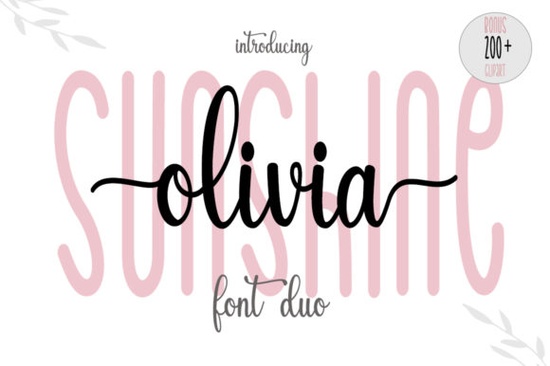
If you're looking for a friendly, bouncy script font that works well across greeting cards, social media graphics, or small-batch product labels, the Sunshine Olivia Font is worth trying. It’s a duo font meaning it includes both a clean, slightly rounded sans-serif companion and a flowing, baseline-dancing script and it’s designed to feel warm and approachable without looking overly formal or fussy. You’ll find it especially useful if you’ve ever struggled to balance personality with readability in hand-lettered-style designs.
What makes Sunshine Olivia different from other script fonts?
Unlike many script fonts that rely heavily on dramatic swashes or tight letter spacing, Sunshine Olivia keeps things open and easy to read even at smaller sizes. The script characters have subtle bounce and gentle contrast, giving them movement without sacrificing clarity. That makes it more flexible than some of the trendier, highly stylized scripts you’ll see in wedding or luxury branding collections.
The included sans-serif companion helps too. You can pair them for headings + body text, use the sans for captions or fine print, or even mix them in logos where legibility matters. And because it’s a Creative Fabrica download, you get bonus illustrations in .ai format hand-drawn sunbursts, leaves, and simple florals that match the font’s cheerful tone. These aren’t just filler extras; they’re practical assets if you’re designing seasonal stickers, planner inserts, or printable wall art.
Where does it fit best in real projects?
This font shines (pun intended) in contexts where warmth and authenticity matter more than polish. Think: handmade soap labels, farmers’ market signage, baby shower invites, or Instagram story templates for local boutiques. It’s not trying to be elegant like Wedding Dream Font, nor rustic like Farmhouse Font. Instead, it sits comfortably in the middle friendly but intentional, playful but professional enough for small business use.
It also pairs well with seasonal themes. For example, if you’re preparing holiday listings for your print-on-demand shop, you might combine Sunshine Olivia with elements from Jolly Christmas Script for contrast using Sunshine Olivia for names or messages and Jolly Christmas for decorative accents. Or try it alongside Sketchy Gossip Font in a fun, layered quote graphic where one font handles the main phrase and the other adds texture or emphasis.
Who’s using it and why?
We’ve seen crafters use Sunshine Olivia Font for printable “thank you” tags bundled with Etsy orders. Print-on-demand sellers apply it to mugs and tote bags where a relaxed, handwritten look feels more personal than a standard sans-serif. Small bakeries use it on chalkboard-style menu boards (digitally designed first, then printed or projected). Even educators download it for classroom posters especially those themed around growth, sunshine, or positivity because students respond well to its light, uplifting rhythm.
One thing users consistently mention: it scales well. Whether you’re setting 12-pt text on a product insert or blowing it up to 200-pt for a banner, the proportions hold up. That’s not always true with script fonts, so it’s a quiet but meaningful advantage.
How to get the most out of the .ai illustrations
The bonus vector illustrations are ready to edit in Illustrator or compatible apps. You don’t need advanced skills to use them just drag them in, recolor with your brand palette, resize as needed, or layer behind text for subtle depth. Try placing a sunburst behind a short headline set in the script version, or tuck a leaf illustration into the counter of the capital “O” for a custom touch. Since they’re vectors, they’ll stay crisp at any size great for both digital mockups and large-format prints.
- Try pairing the script with a neutral sans-serif first (like Montserrat or Poppins) before jumping into more decorative combos.
If you already own Sunshine Olivia Font, revisit your older projects you might spot places where swapping in its script version adds just the right amount of lightness. If you’re new to it, start with something low-stakes: a social post, a thank-you note template, or a single product label. See how it feels in context before building a whole collection around it.